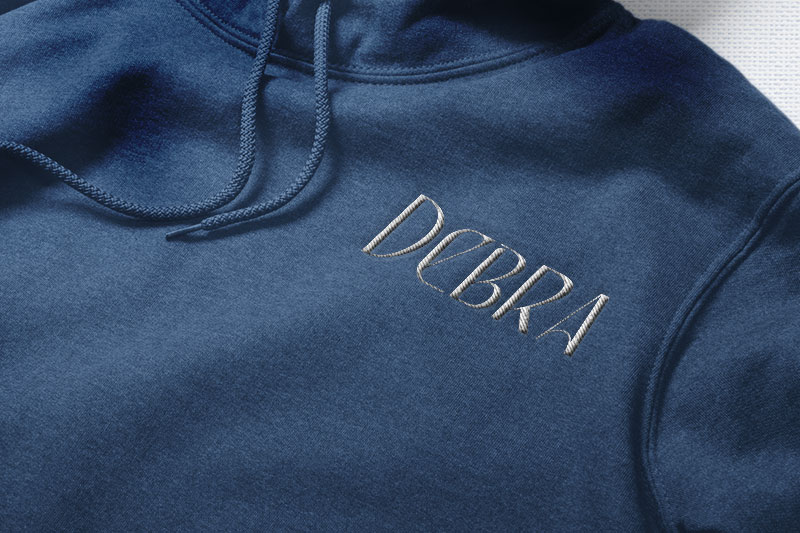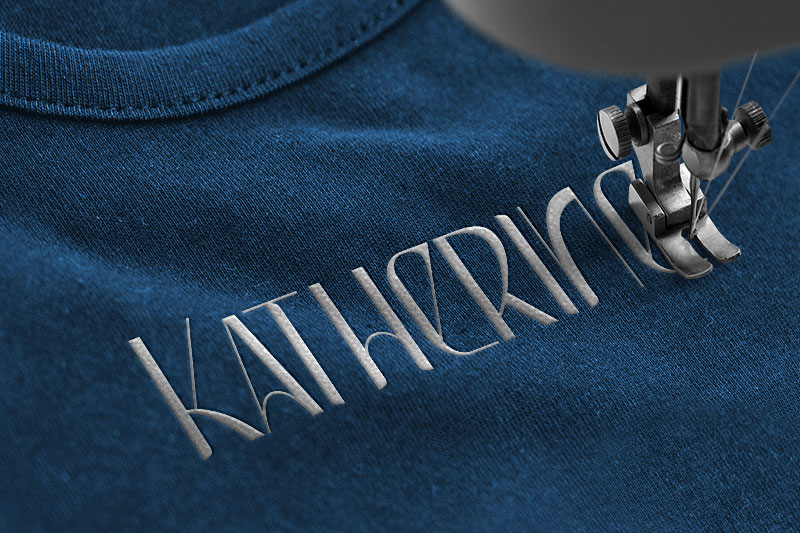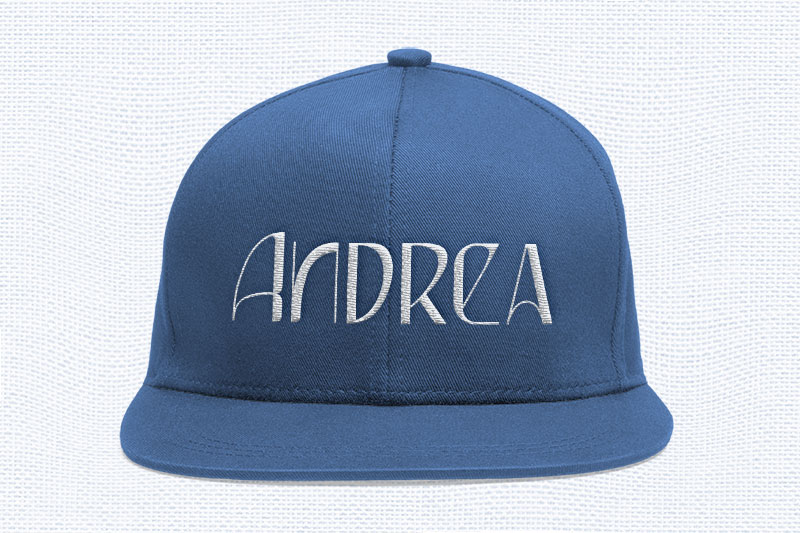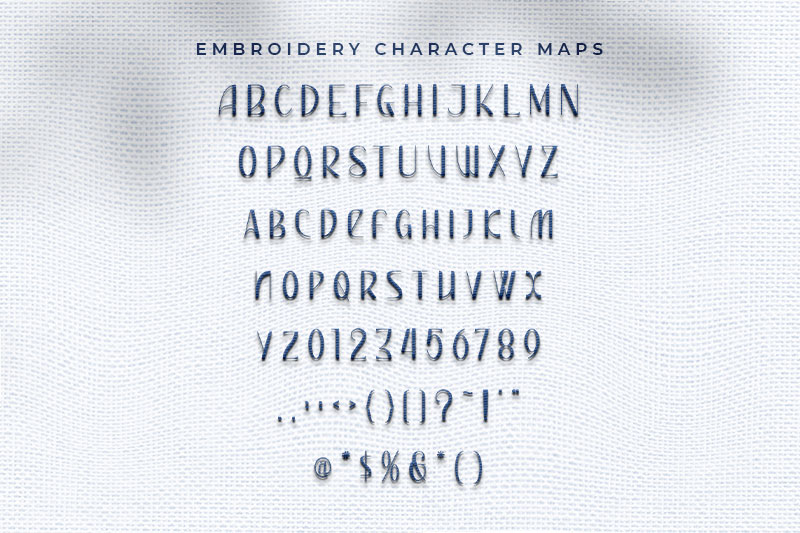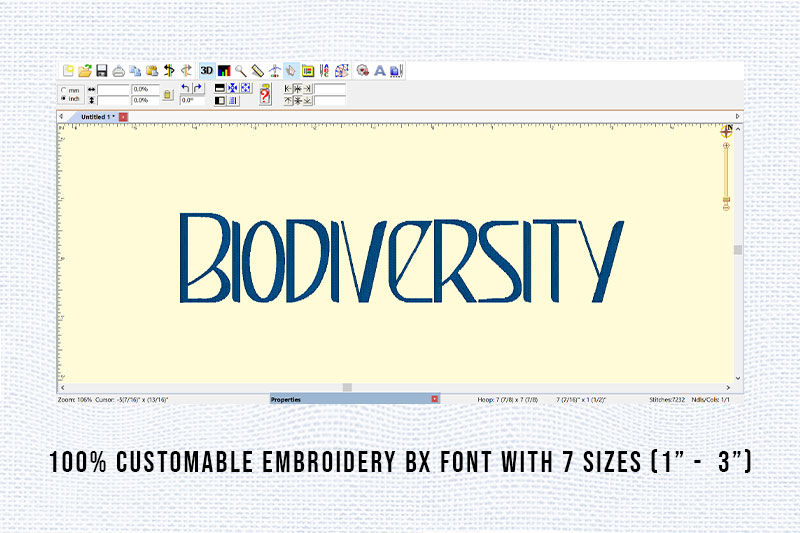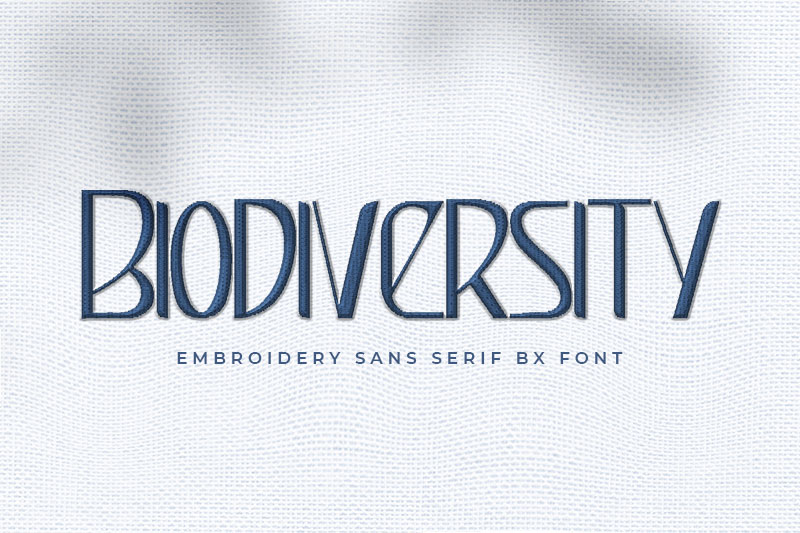
The Kong font is back with a new type of embroidery font. Biodiversity Embroidery Font was created to increase the variety of options available to Embroidery font users. Of course, this is an advantage for you, because the font you use will not be monotonous. The Kong font provides two types of Biodiversity Embroidery Font, Embroidery font, and digital fonts. It can be used as embroidery on various items and can also be used as a complement to various digital containers.
Biodiversity Embroidery Font has characteristics upright shape, easy to distinguish between letters, and there is no addition to it. It can be said that this font is included in the legible font because based on the characteristics that call it clean, it can be concluded that. However, this still carries the impression that is usually attached to embroidery fonts, namely simple, clean, and modern.
Given the exciting characteristics it has created, Biodiversity Embroidery Font is one of the best fonts to use on hats, T-shirts, jackets, and hoodies. In addition, it is suitable to be combined with several of your lovely products, such as stickers for television, motorcycle, car, and bicycle. Font Kong provides Embroidery font for digital and print use. Both of them will not eliminate the element of cool and modern posed by Biodiversity Embroidery Font.
We can digitally apply Biodiversity Embroidery Font to promote your product on social media or websites. This will show the modern and simple impressions. This will attract interest and add to the impression of the reader of this font.